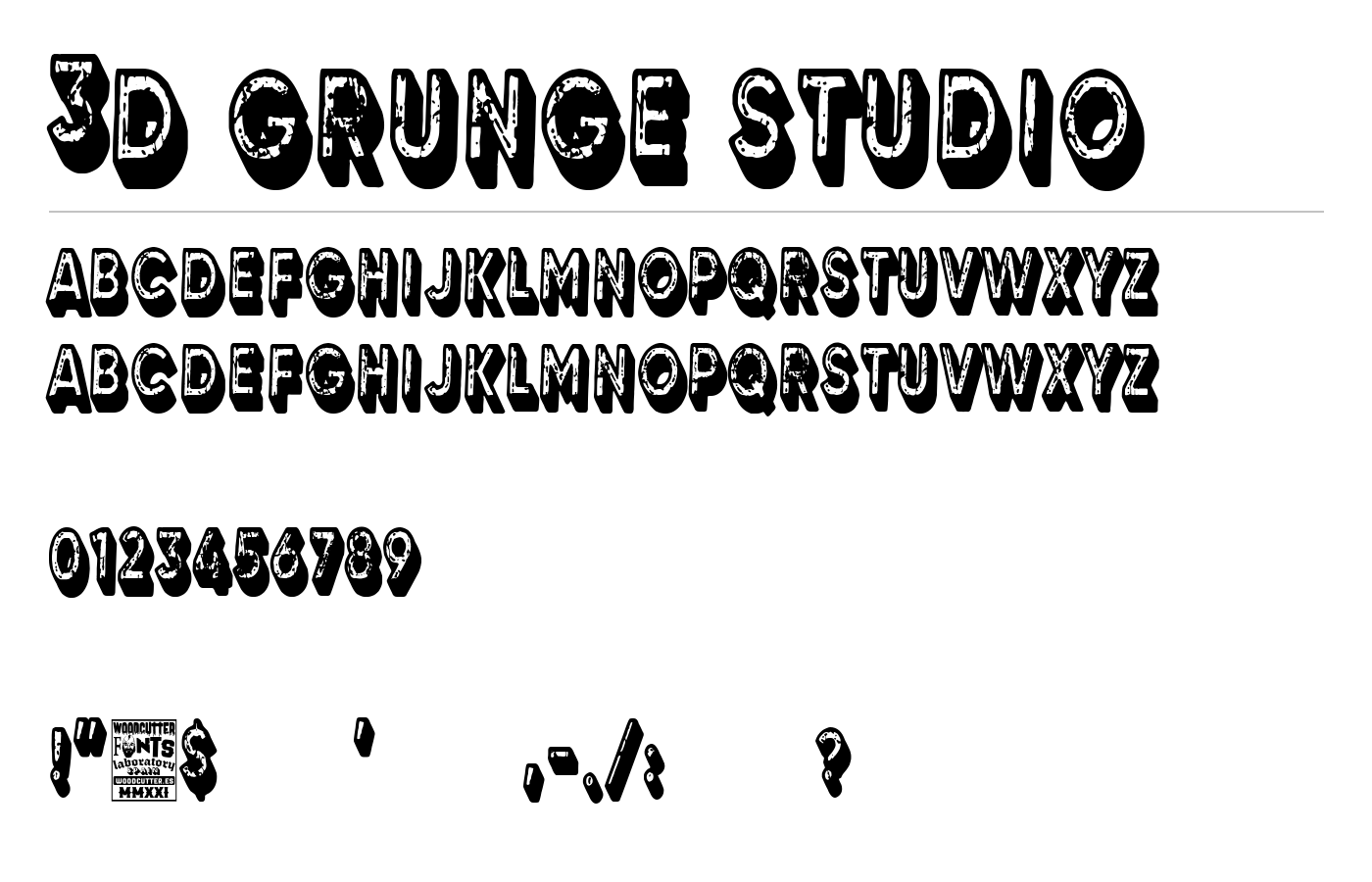
3D Grunge Studio is a bold, uppercase display font featuring a playful 3D shadow effect combined with a distressed, textured surface. Its thick, irregular letterforms and rough detailing give it a gritty, vintage vibe, making it ideal for eye-catching headlines, posters, or branding that seeks an edgy, retro feel with a handmade touch. This font works well when you want to add character and a sense of worn, artistic charm to creative projects.
3D Grunge Studio Font
About 3D Grunge Studio Font